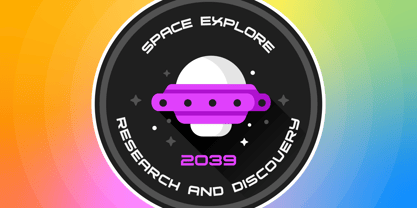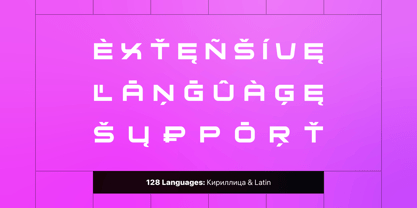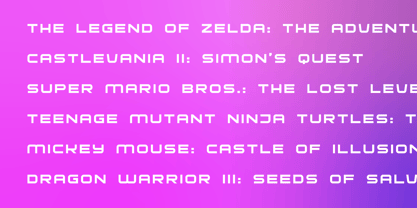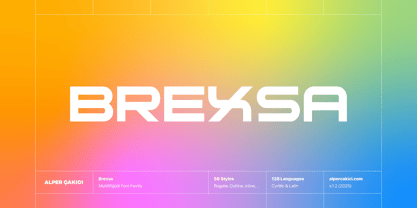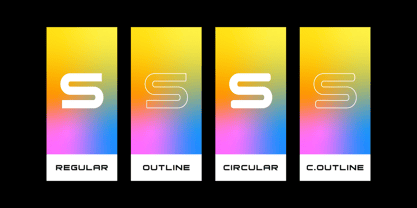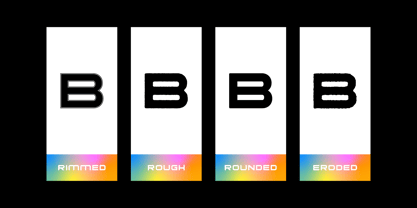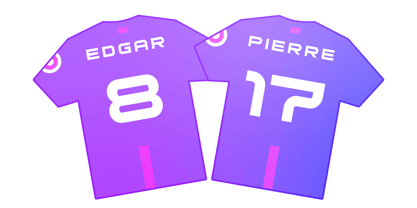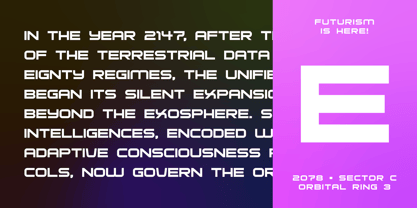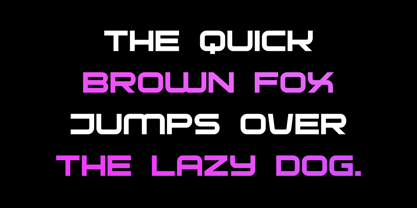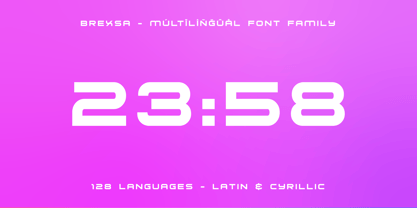
Brexsa
by AlperCakici
The Brexsa Font Family was designed by Alper Çakıcı and published by AlperCakici. Brexsa contains 58 styles and family package options. More about this family
🚀 Brexsa – The Futuristic Multi-Style Typeface System Meet Brexsa, a forward-thinking type family crafted for designers who want impact, innovation, and versatility. Blending futuristic geometry with stencil-inspired techno design, Brexsa offers a powerful library of 58 handcrafted styles—from clean technical forms to textured, eroded, rimmed, inline, brush, and rounded variations. Whether you're building sleek UI, cinematic sci-fi titles, cutting-edge branding, or expressive display typography, Brexsa gives you the tools to explore countless moods within one cohesive system. ✨ Why Choose Brexsa? 58 Styles: Angular, Circular, Rounded, Rough, Brush, Inline, Rimmed, Pencil, Noise, Eroded, Outline & italics for every style. Futuristic + Techno DNA: Sharp geometry and engineered cuts create a modern, high-tech aesthetic. Designed for Flexibility: Ideal for tech branding, gaming, posters, motion graphics, signage, product design, and UI/UX. Smooth Performance: Optimized for clarity and consistency across print, digital, and large-scale displays. 128 Languages Supported: Extended Latin + Cyrillic coverage ensures global communication.